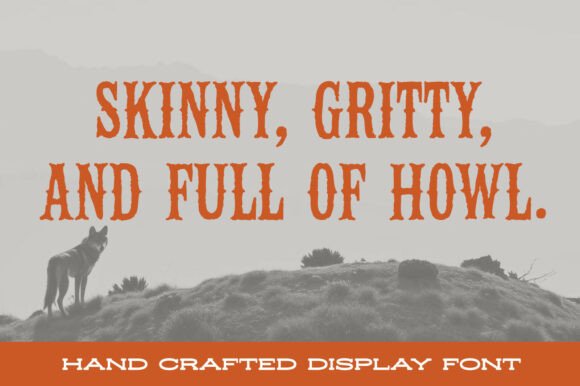
Coyote Ridge Font: Unleashing the Wild West Spirit
In the realm of typography, few fonts capture the essence of the American Old West as authentically as Coyote Ridge. This wiry, weathered font is designed to evoke the rugged frontier spirit that defined the likes of desert towns, saloon signs, and trail-worn posters. With its distressed edges and raw, hand-crafted style, Coyote Ridge is the perfect choice for projects that require a dose of rustic charm and untamed personality.
The Inspiration Behind Coyote Ridge
Coyote Ridge draws inspiration from the unforgiving landscape of the American West. The font’s design is rooted in the idea of capturing the grit and resilience of a bygone era. Its tall and lean structure is reminiscent of the weathered signs that once dotted the dusty main streets of Western towns. The distressed edges and worn appearance of Coyote Ridge evoke the feeling of a lone coyote howling across the ridge, a symbol of freedom and untamed spirit.
Design Characteristics
Coyote Ridge boasts a range of design characteristics that make it an ideal choice for Western-themed branding, packaging, and marketing materials. Some of its key features include:
- Wiry and weathered appearance: Coyote Ridge has a distinctly worn and weathered look, as if it’s been through the trials and tribulations of the Wild West.
- Distressed edges: The font’s edges are rough and distressed, giving it a raw, hand-crafted feel.
- Tall and lean structure: Coyote Ridge is designed to be tall and lean, evoking the feeling of a lone cowboy standing tall on the open range.
- Rugged frontier voice: The font’s raw, unpolished style makes it perfect for projects that require a rugged, untamed voice.
Use Cases for Coyote Ridge
Coyote Ridge is a versatile font that can be used in a variety of contexts, from Western branding and packaging to rodeo flyers and country music covers. Some potential use cases for Coyote Ridge include:
- Western branding: Coyote Ridge is perfect for businesses that want to evoke the spirit of the Wild West, such as cowboy gear manufacturers, Western-themed restaurants, or outdoor adventure companies.
- Rustic packaging: The font’s distressed edges and weathered appearance make it an excellent choice for packaging that needs to stand out on store shelves.
- Rodeo flyers: Coyote Ridge is a natural fit for rodeo flyers, adding a touch of rugged authenticity to promotional materials.
- Country music covers: The font’s raw, untamed style makes it perfect for country music covers, adding a touch of rustic charm to album artwork.
Why Choose Coyote Ridge?
With so many fonts to choose from, why should you choose Coyote Ridge for your next project? Here are just a few reasons:
- Unique personality: Coyote Ridge has a unique, untamed personality that sets it apart from more traditional fonts.
- Authentic Western feel: The font’s design is rooted in the American Old West, making it perfect for projects that require an authentic Western feel.
- Versatility: Coyote Ridge can be used in a variety of contexts, from branding and packaging to marketing materials and album artwork.
- Raw, hand-crafted style: The font’s raw, hand-crafted style adds a touch of rustic charm to any project.
In conclusion, Coyote Ridge is a font that truly captures the essence of the American Old West. With its wiry, weathered appearance, distressed edges, and raw, hand-crafted style, it’s the perfect choice for projects that require a dose of rustic charm and untamed personality. Whether you’re looking to create Western-themed branding, rustic packaging, or country music covers, Coyote Ridge is the perfect font for the job.
- What inspired the design of Coyote Ridge?: Coyote Ridge was inspired by the rugged landscape of the American Old West.
- What kind of projects is Coyote Ridge best suited for?: Coyote Ridge is best suited for Western-themed branding, rustic packaging, rodeo flyers, and country music covers.